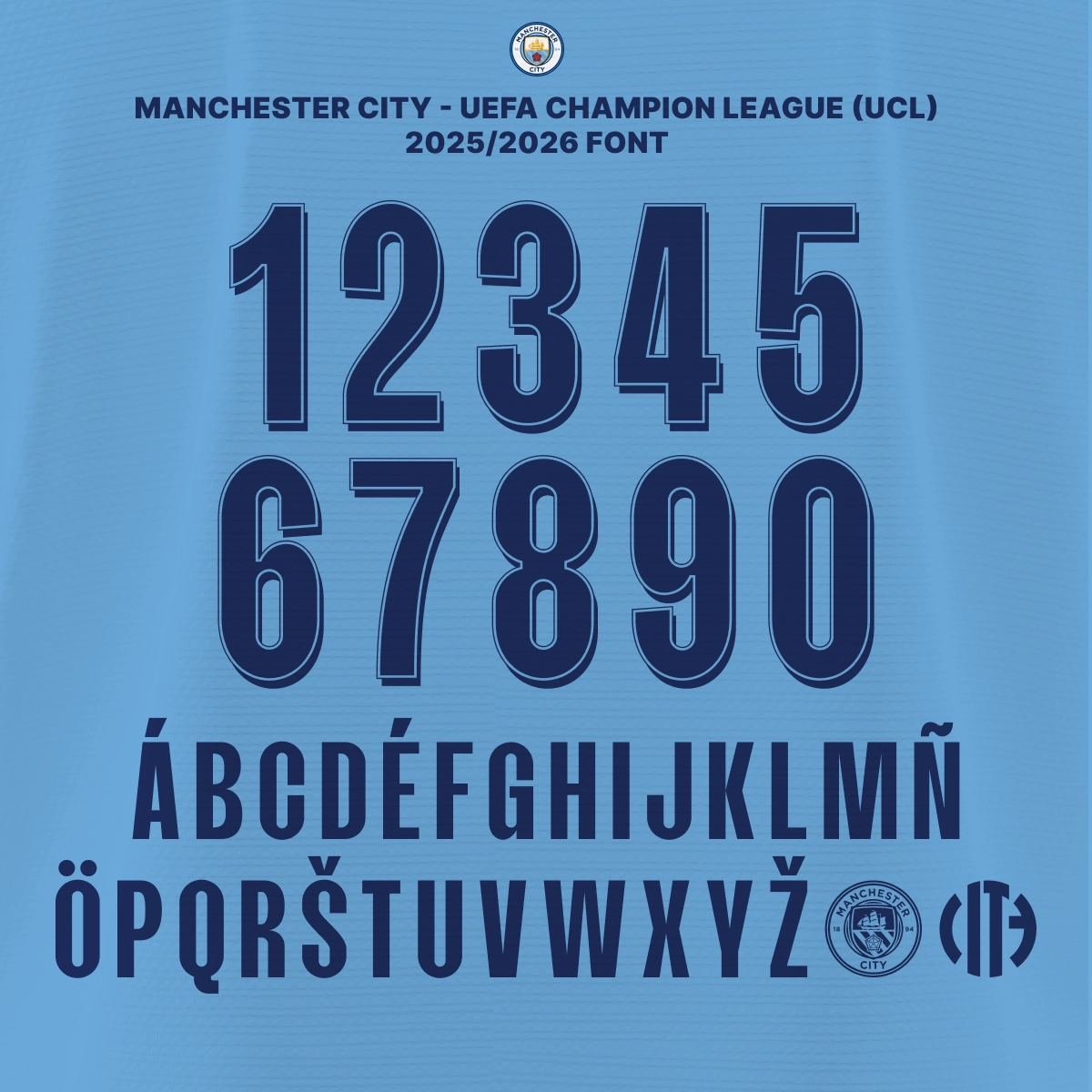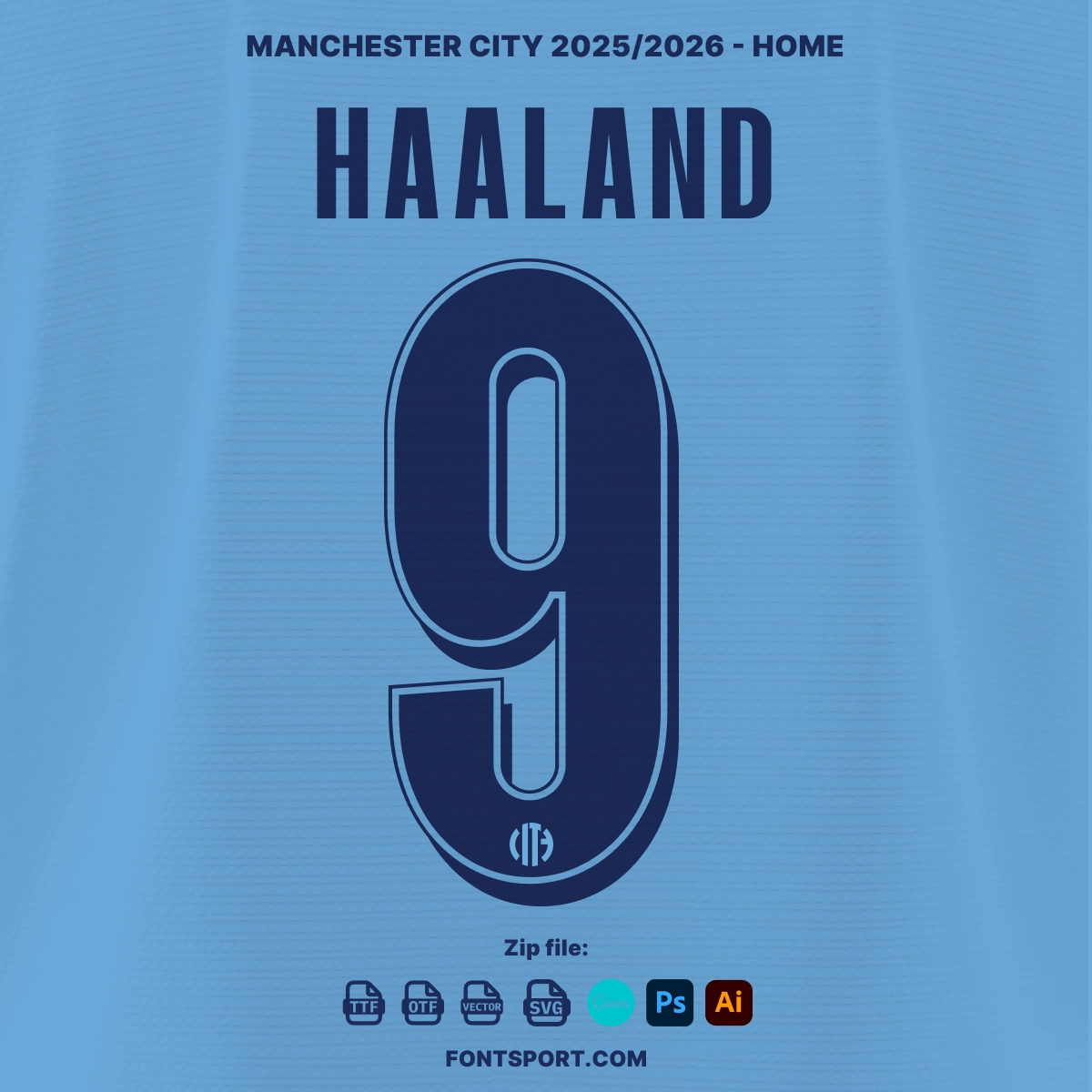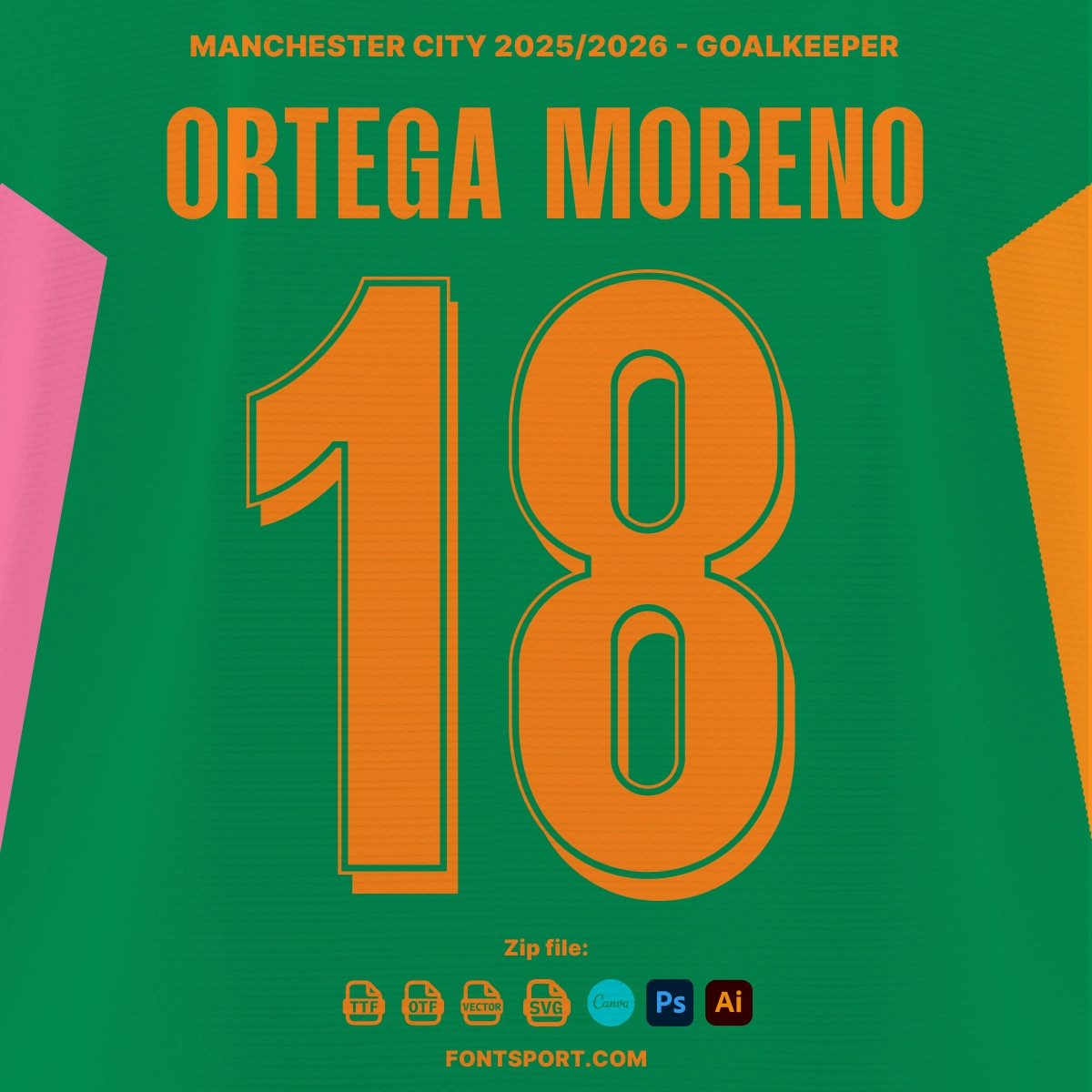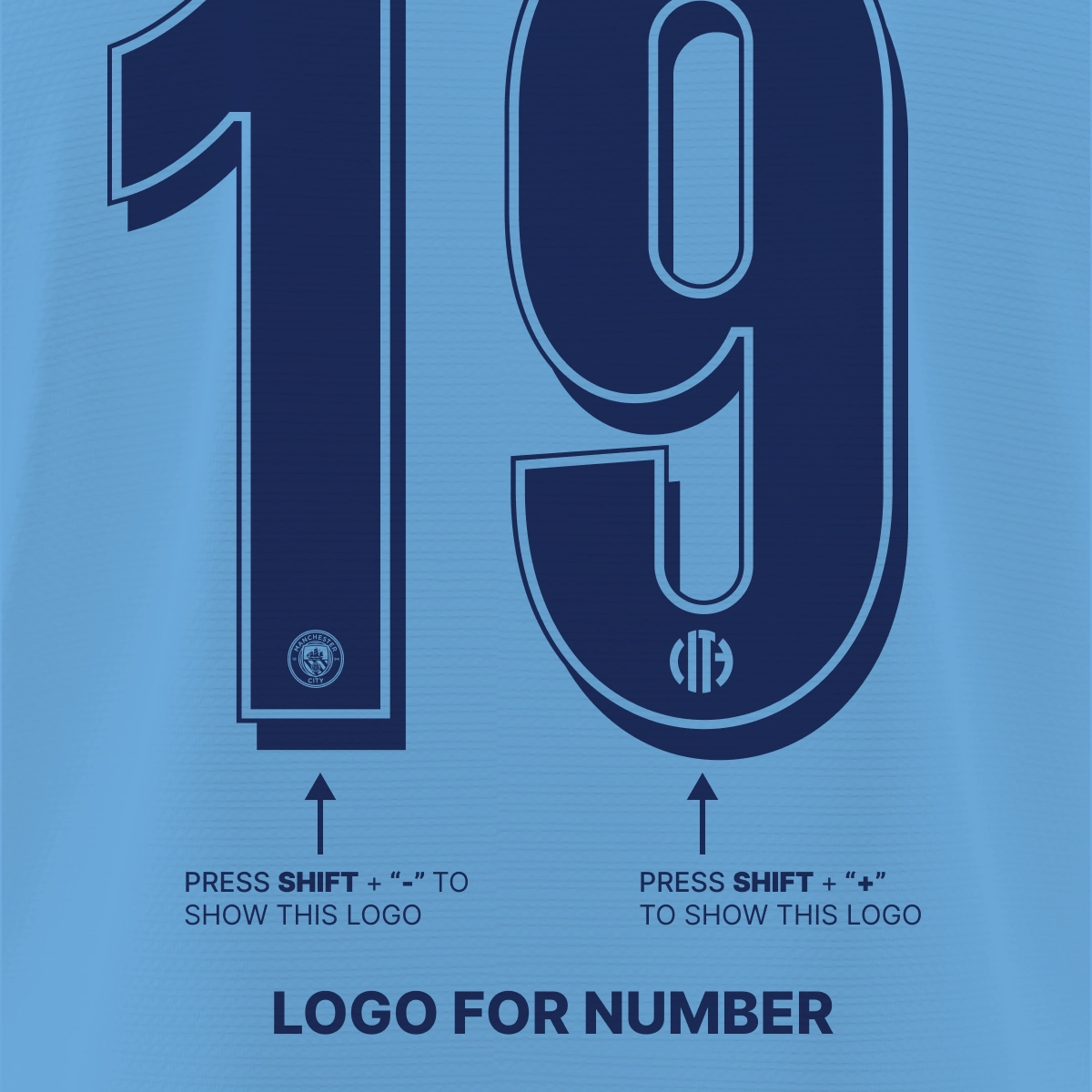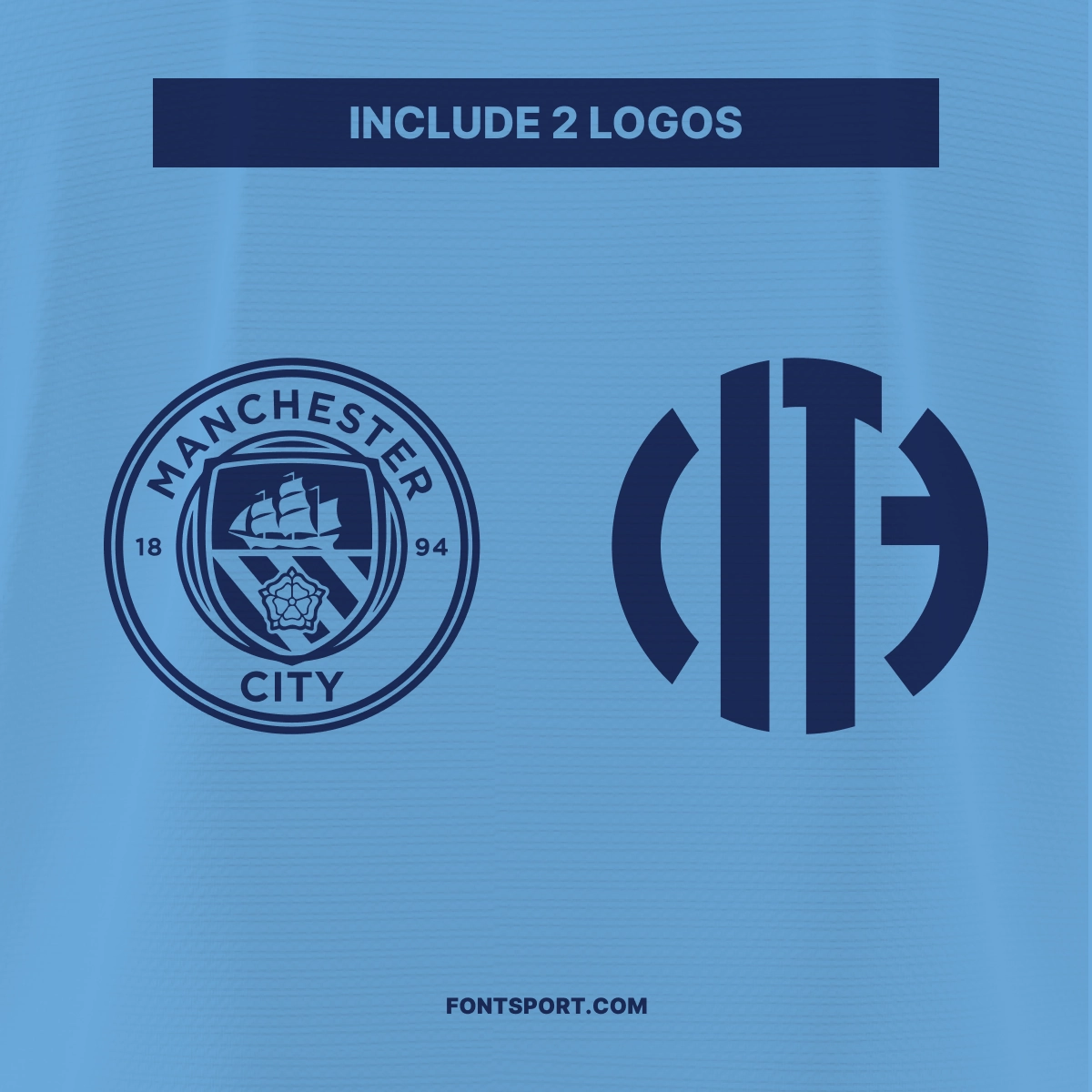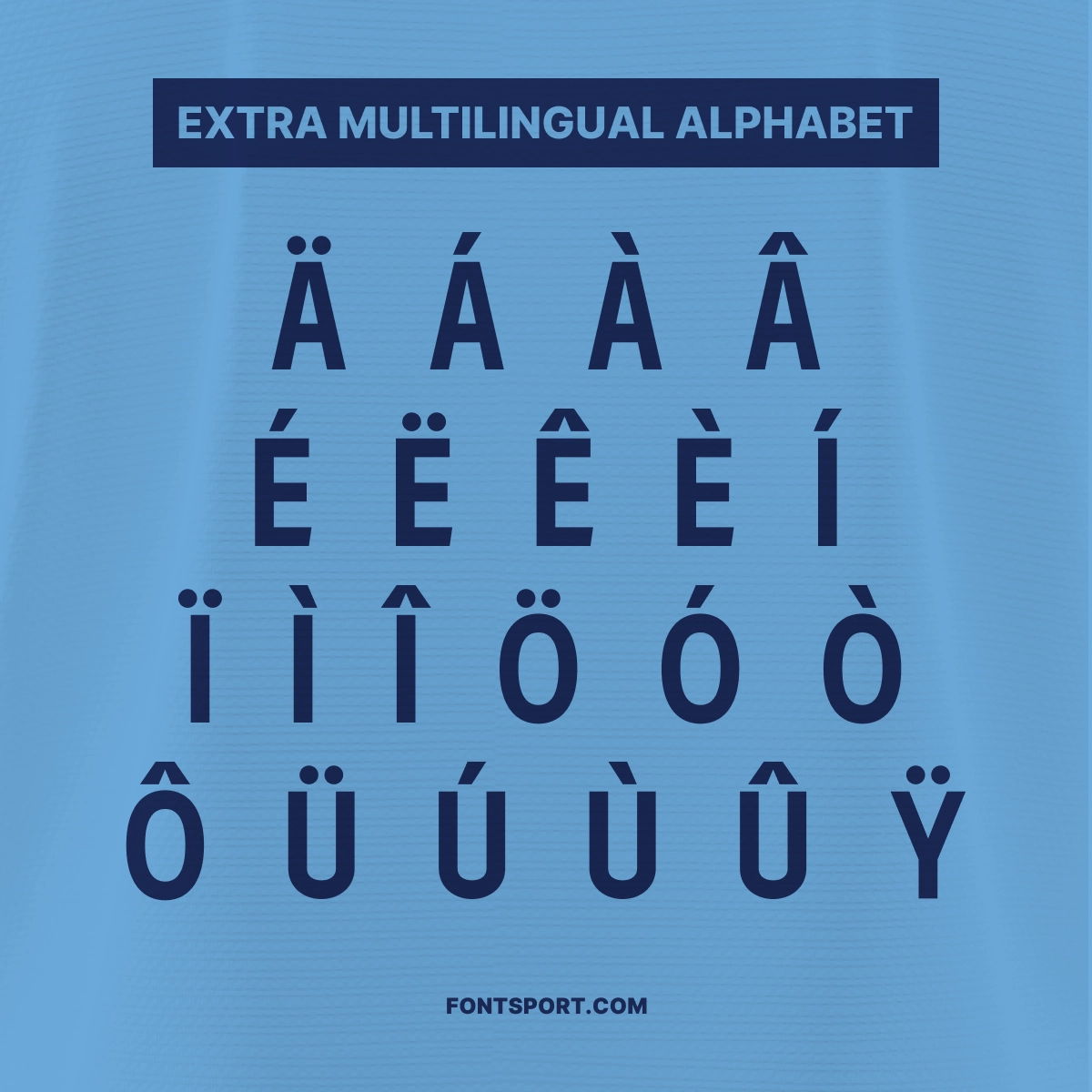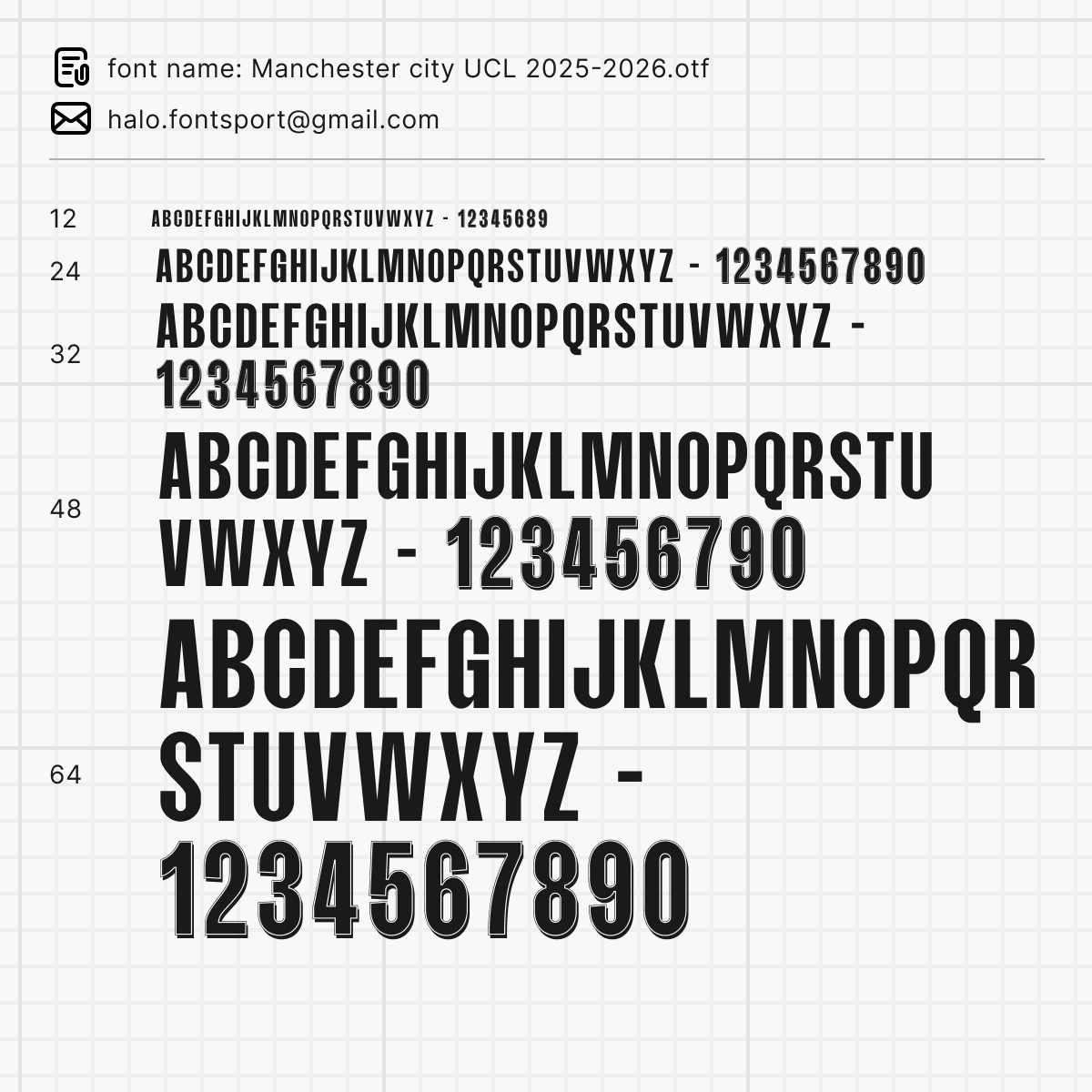
Manchester City Font Kit 2025/2026
The Manchester City Font Kit 2025/2026 is a modern and high-impact typeface inspired by the iconic Premier League club. Designed to reflect their bold identity during the 2025/2026 UEFA Champions League season, this kit blends style with usability. As a result, it’s ideal for football fans, creatives, and professionals looking to infuse their designs with Manchester City’s signature look.
Whether you’re working on a poster, crafting a custom jersey, or creating fan-made merchandise, this font kit delivers a clean, matchday-ready visual that stands out across formats. It works just as well for social media graphics and print materials. Moreover, the font has been optimized for clarity on both screen and paper.
• ✅ Full uppercase A–Z and numbers 0–9
• ✅ Two unique Manchester City logos built directly into the font – just type to reveal them
• ✅ Multilingual alphabet with Latin-based characters
Furthermore, each letter’s structure is clean and adaptable, making your layouts appear sharp even at small sizes. As a result, your designs remain consistent across all outputs.
Inspired by the official font used by Manchester City during the 2025/2026 Premier League and UCL seasons, this kit helps fans express their loyalty through design.
5. The available characters include uppercase letters (for player names), and numbers (for player jersey numbers).
Manchester City UCL 2025/2026 font complete character set, featuring bold numbers and multilingual capital letters with embedded logos.